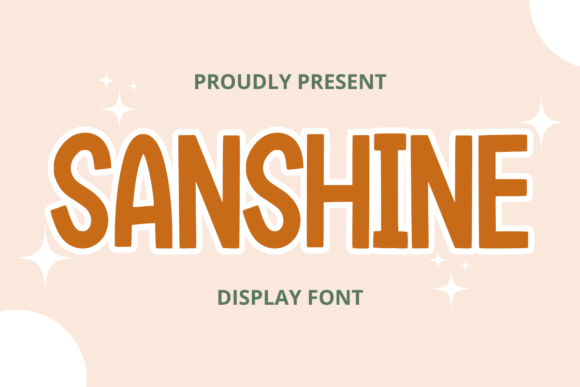
Introducing Sanshine Font, the perfect choice for all your T-shirt printing needs. Created by SiapGraph, this delightful display font is bound to add a touch of fun and friendliness to your creative projects. With its unique and eye-catching design, Sanshine Font will captivate your audience and leave a lasting impression.
Searching for the best fonts for T-shirt printing? Look no further! Sanshine Font is here to fulfill your every requirement. Its versatility allows it to adapt seamlessly to various design styles, making it an essential tool for graphic designers, artists, and T-shirt enthusiasts alike.
Why settle for ordinary when you can have extraordinary? Sanshine Font brings a whole new level of creativity to your designs. Its playful and vibrant characters will inject life into your T-shirt designs, ensuring that you stand out from the crowd. Whether you're designing for a casual gathering, a sports event, or a special occasion, this font is the ultimate game-changer.
Let your imagination run wild with Sanshine Font. Its wide range of applications makes it perfect for creating not just T-shirts, but also posters, logos, social media graphics, and more. Elevate your brand and leave a lasting impression with this remarkable font that effortlessly combines style, versatility, and personality.
Crafted with utmost precision, Sanshine Font guarantees high-quality results every time. Its clean lines and smooth curves ensure legibility, even at smaller sizes. No more sacrificing readability for style – this font strikes the perfect balance between aesthetics and functionality.
Unlock a world of endless possibilities with Sanshine Font. Express your creativity, showcase your unique personality, and make a statement with every design. Immerse yourself in a font that effortlessly blends modernity with a timeless charm, leaving a lasting impact on anyone who lays eyes on it.